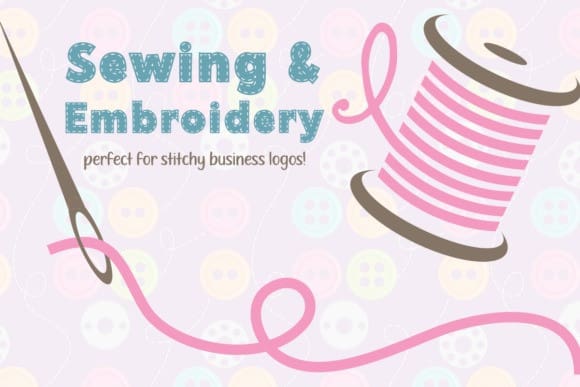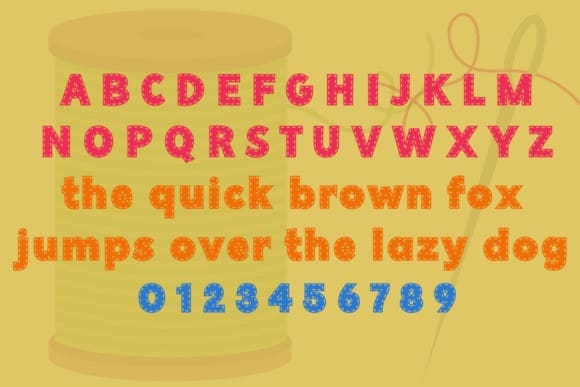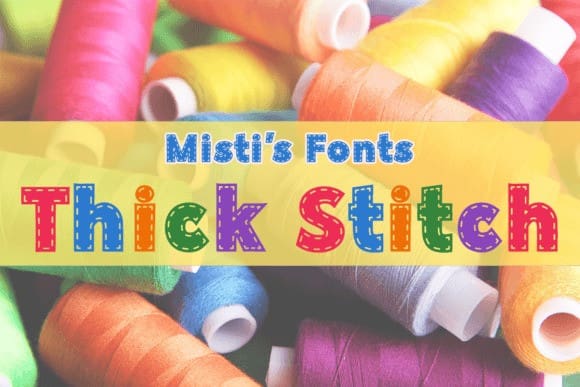
Thick Stitch Font
Thick Stitch Font, a bold typeface that brings a cozy, hand-stitched look to your designs. With thick, defined lines and stitched edges, this font is perfect for crafting, DIY projects, branding, and digital or print work that needs a touch of warmth and creativity.